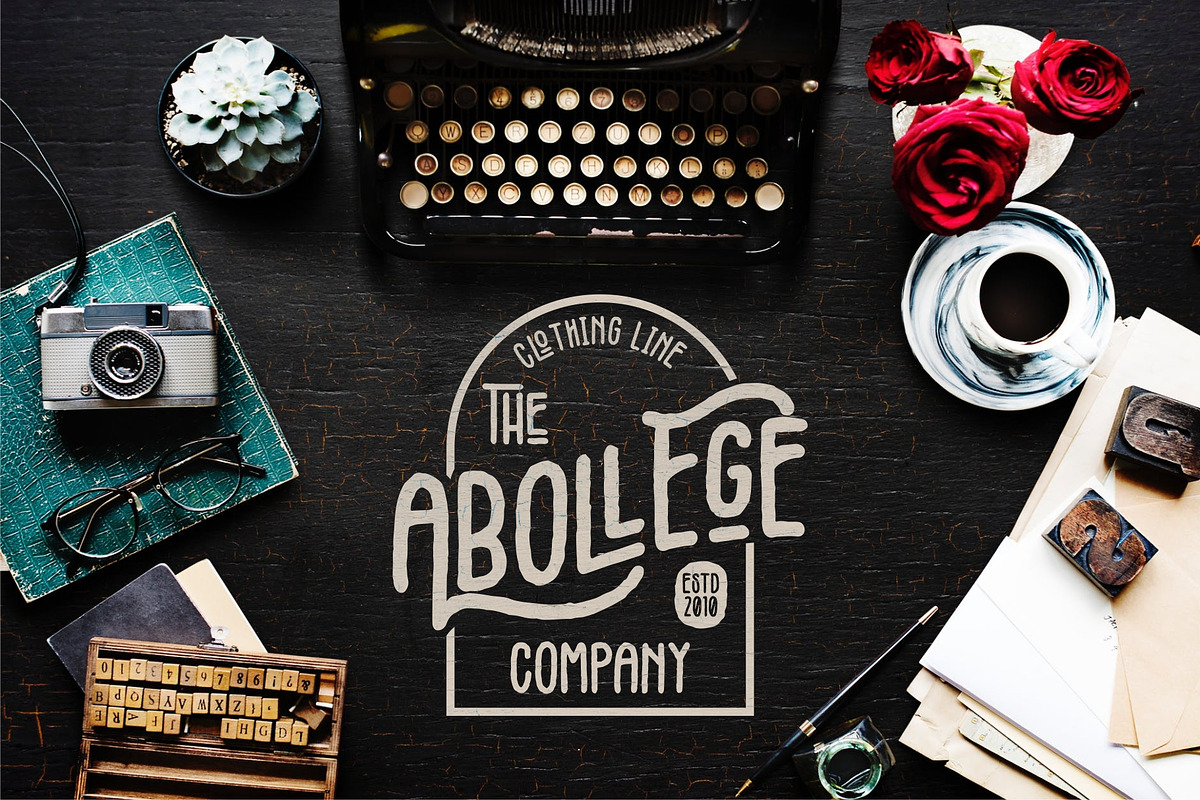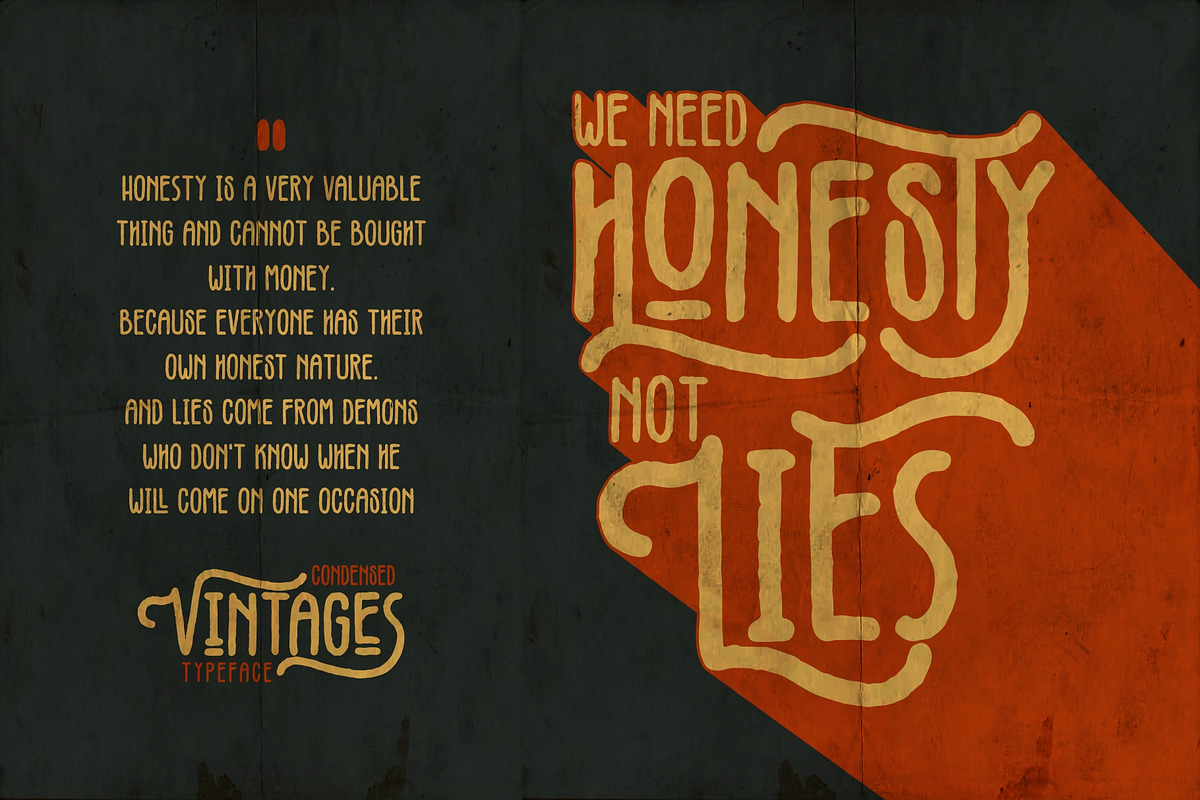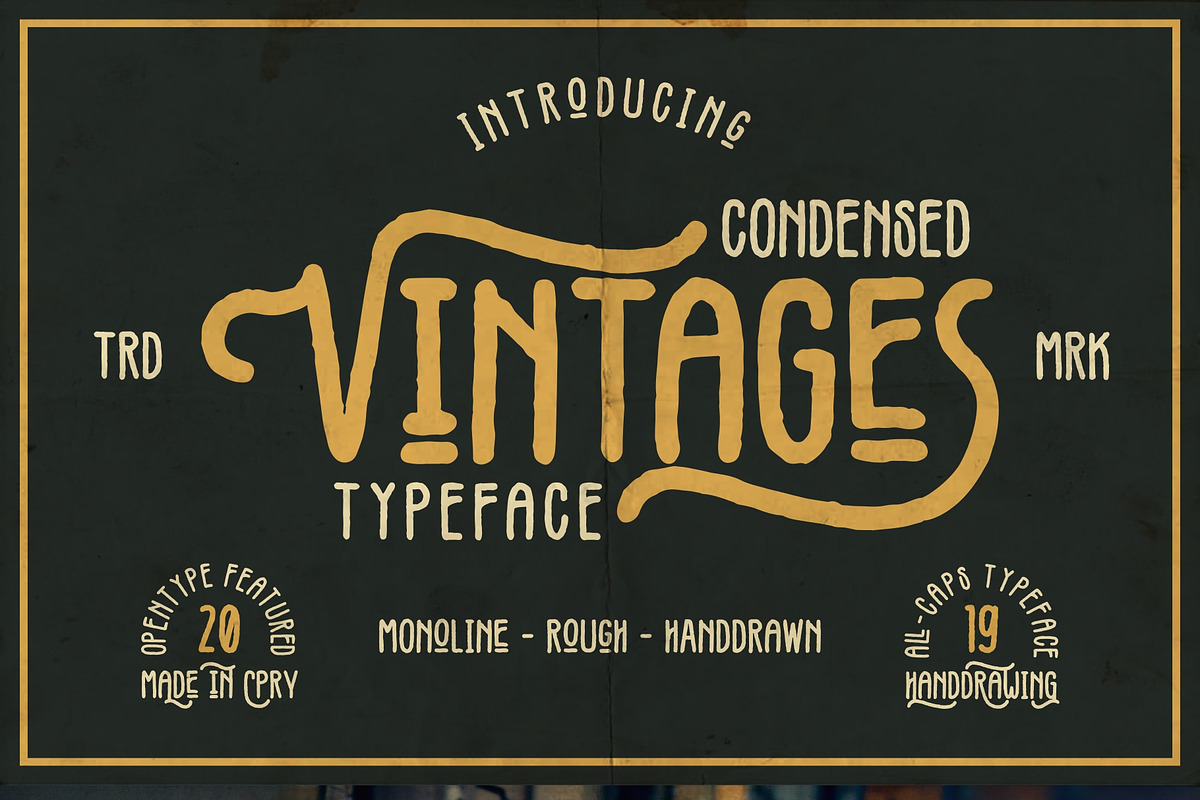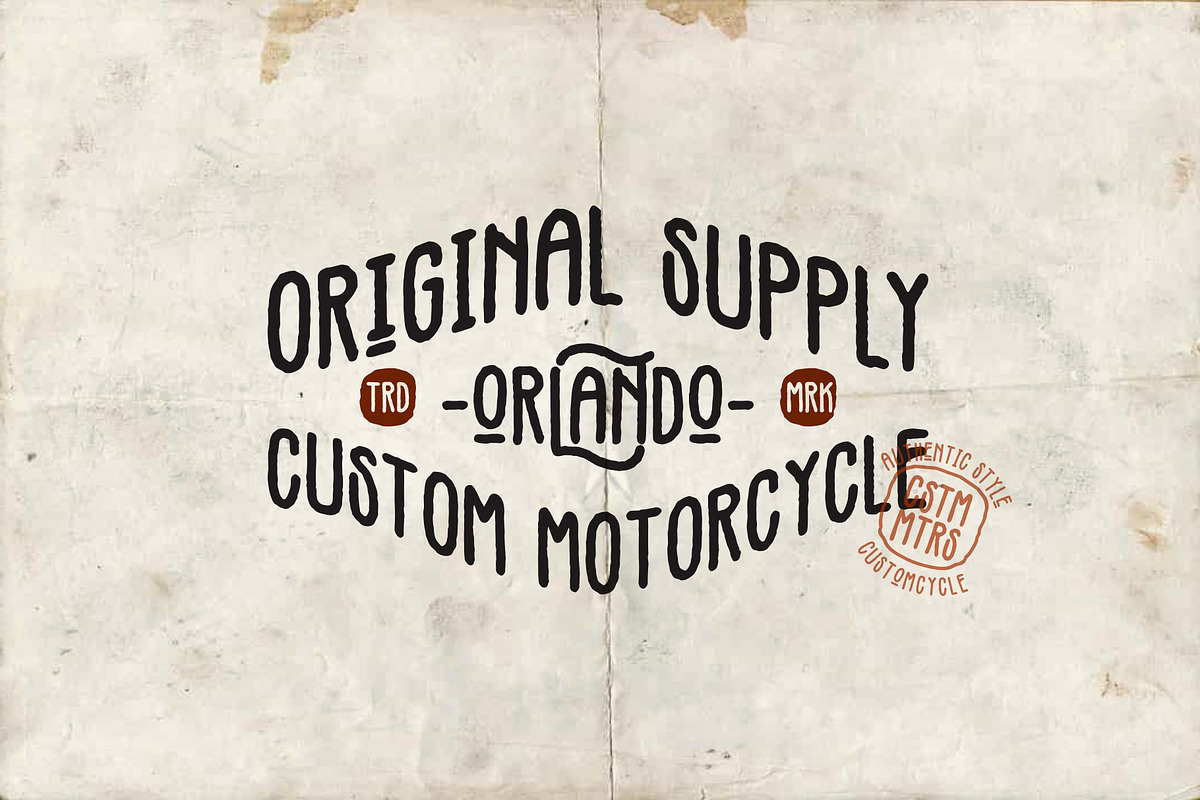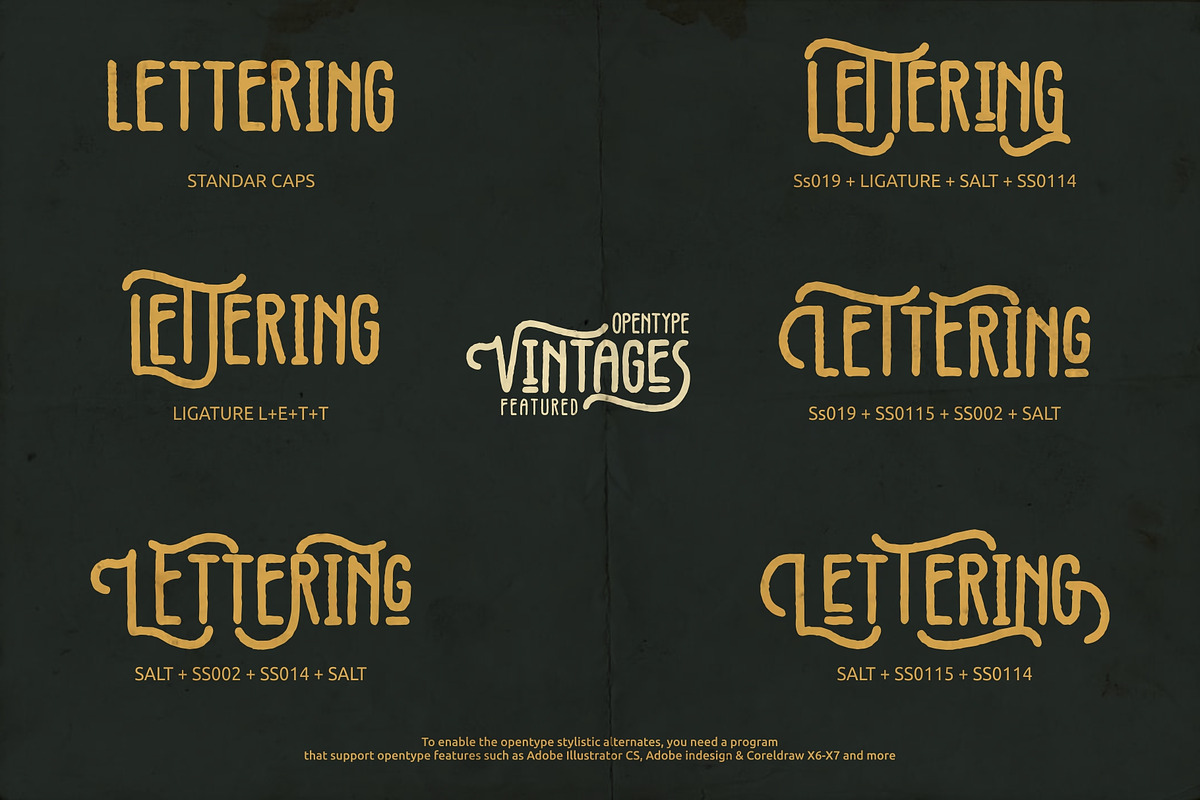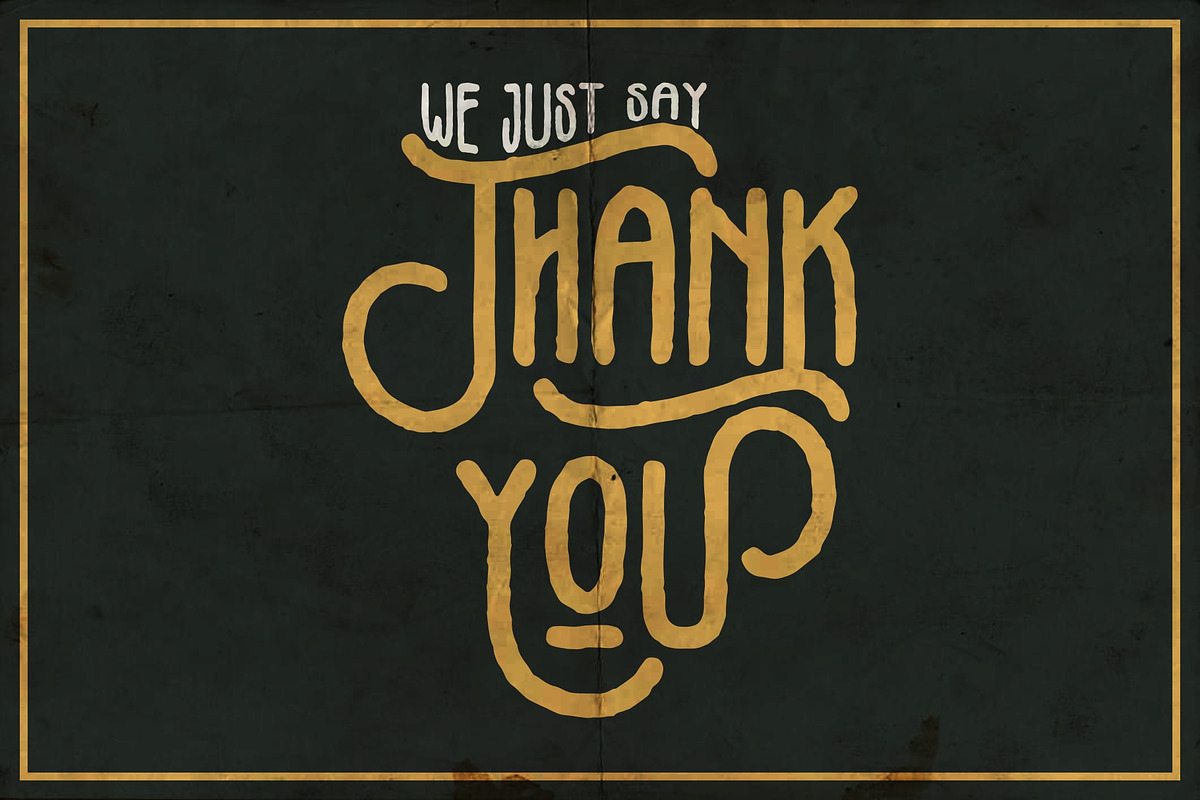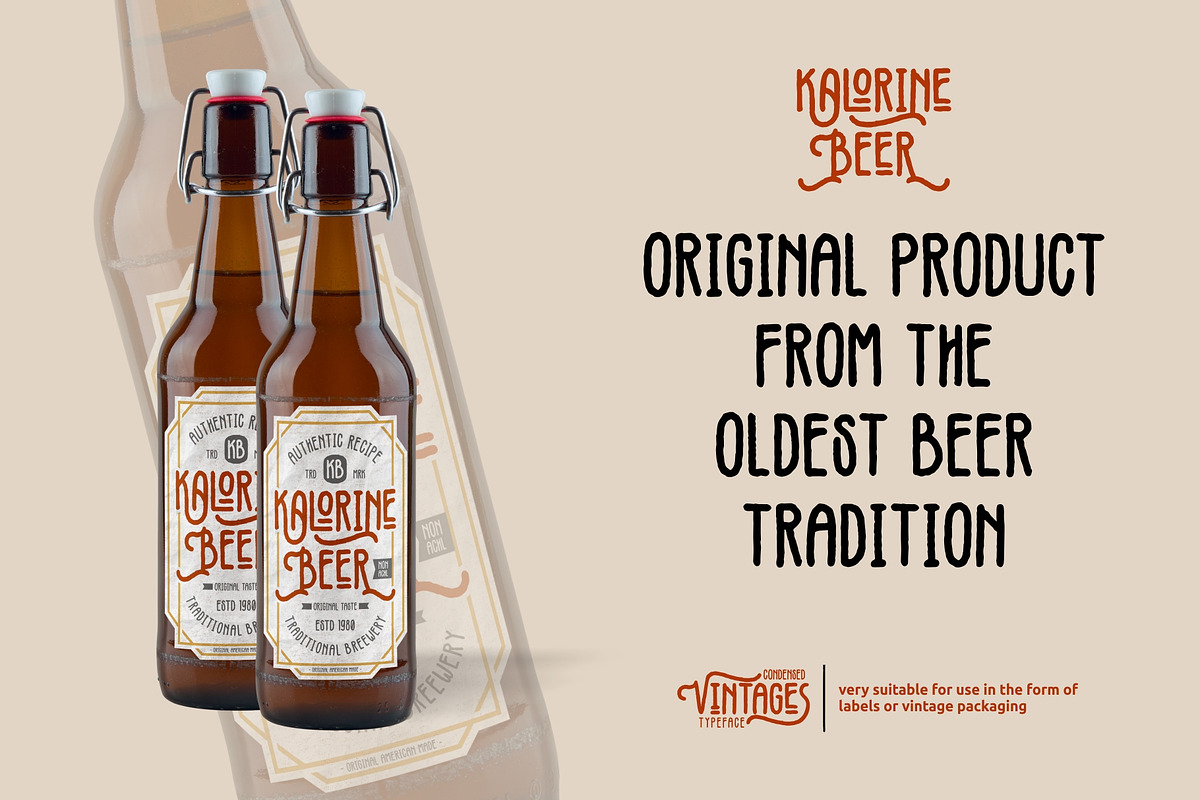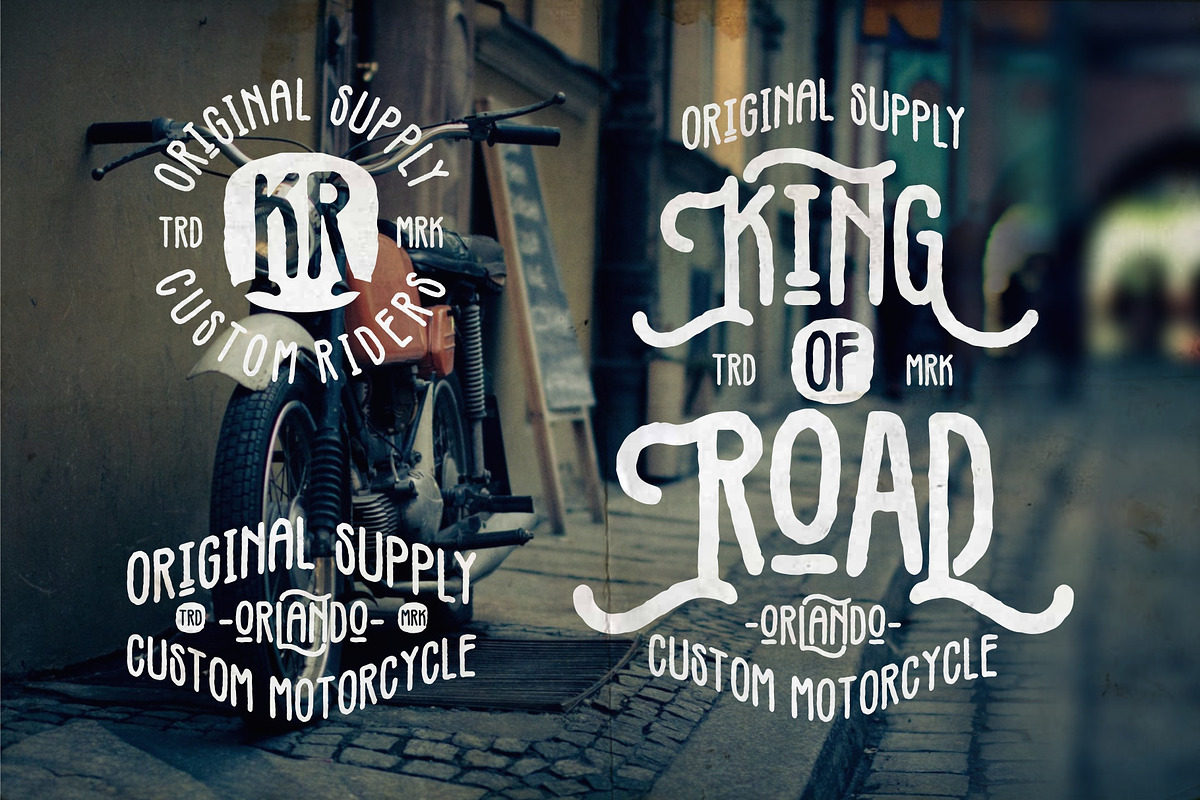
Vintages Typeface
Say Welcome to VINTAGES TYPEFACE
VINTAGES typeface is handmade modern vintage monoline display typefaces, condensed with all caps characther pairing which is combining the style of classic typography with a modern hand-drawn style.
Versatile for many project you needed, like a logo type, handlettering, branding, label, t-shirt design, poster and many more.
There are more than 400+ glyphs in the font including Stylistic sets, Ligatures, etc. OpenType features with Stylistic Alternates & Stylistc Set in some characters that allows you to mix and match pairs of letters to fit your design. To access the alternate glyphs, you need a program that supports OpenType features such as Adobe Illustrator CS and Adobe Indesign.
Multilingual characters (support for 23 languages): Afrikaans Albanian Catalan Croatian Czech Danish Dutch English Estonian Finnish French German Hungarian Icelandic Italian Norwegian Polish Portugese Slovak Slovenian Spanisch Swedish Zulu